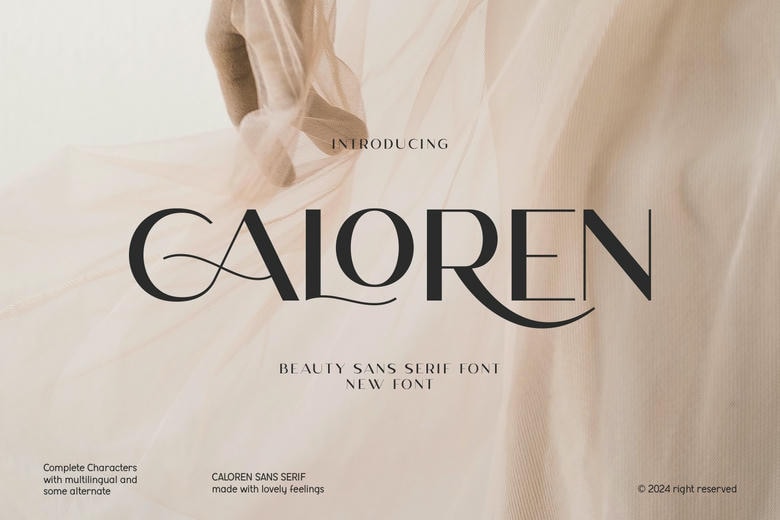
Caloren is a clean, modern sans-serif font designed for beauty and elegance. Its smooth lines and balanced shapes make it perfect for a stylish, minimal look. Ideal for branding, logos, or any design that needs a soft, refined feel.
Caloren Sans Serif Font